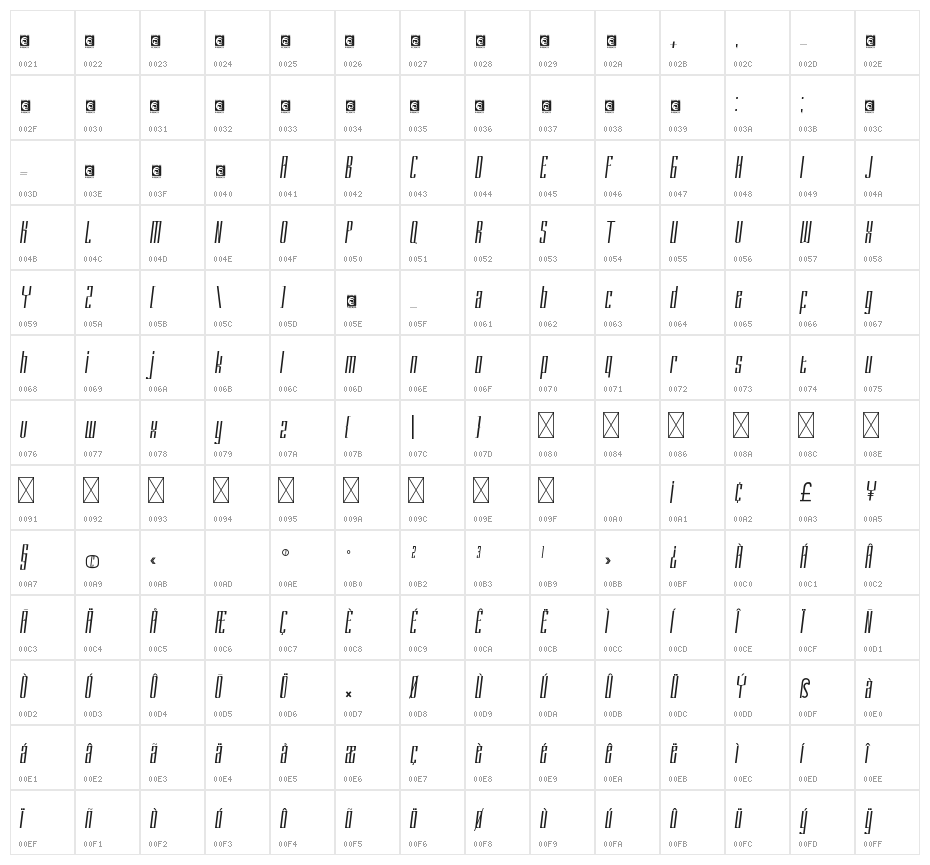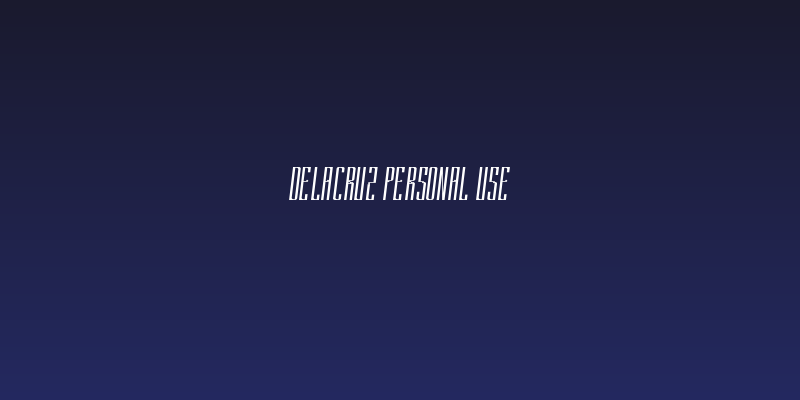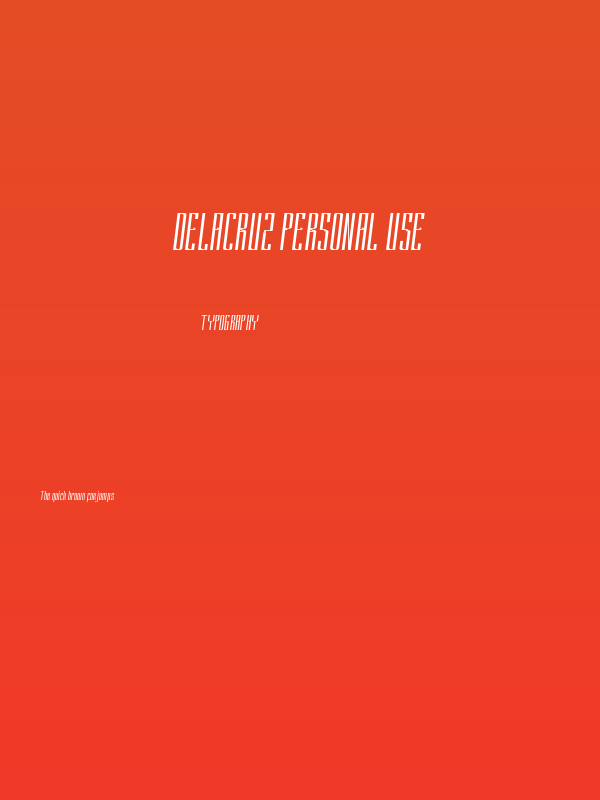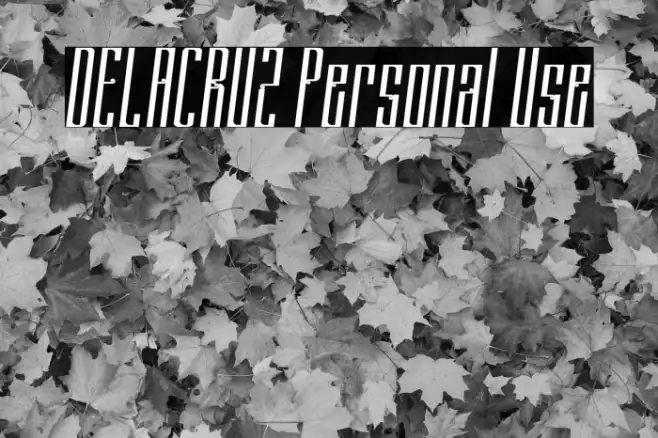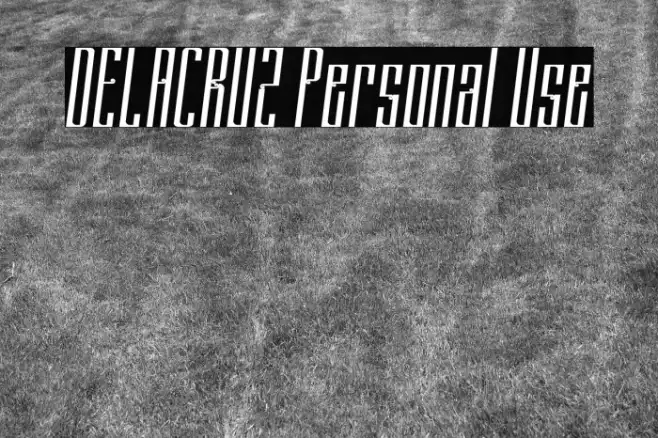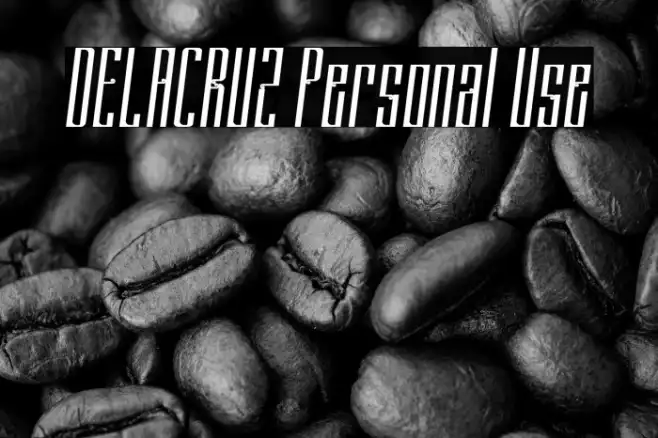
DELACRUZ Personal Use Font
This font features a modern and sleek design with elongated, narrow characters that convey a sense of elegance and sophistication. The uppercase and lowercase letters are consistently styled with sharp angles and a slight slant, giving the font a dynamic and forward-moving appearance. The numerals and special characters maintain this aesthetic, ensuring a cohesive look across all text elements. The font's unique style makes it stand out, suitable for projects that require a contemporary and stylish touch.
| Proposed Projects | Ideal for branding, fashion magazines, modern art posters, and high-end product packaging. |